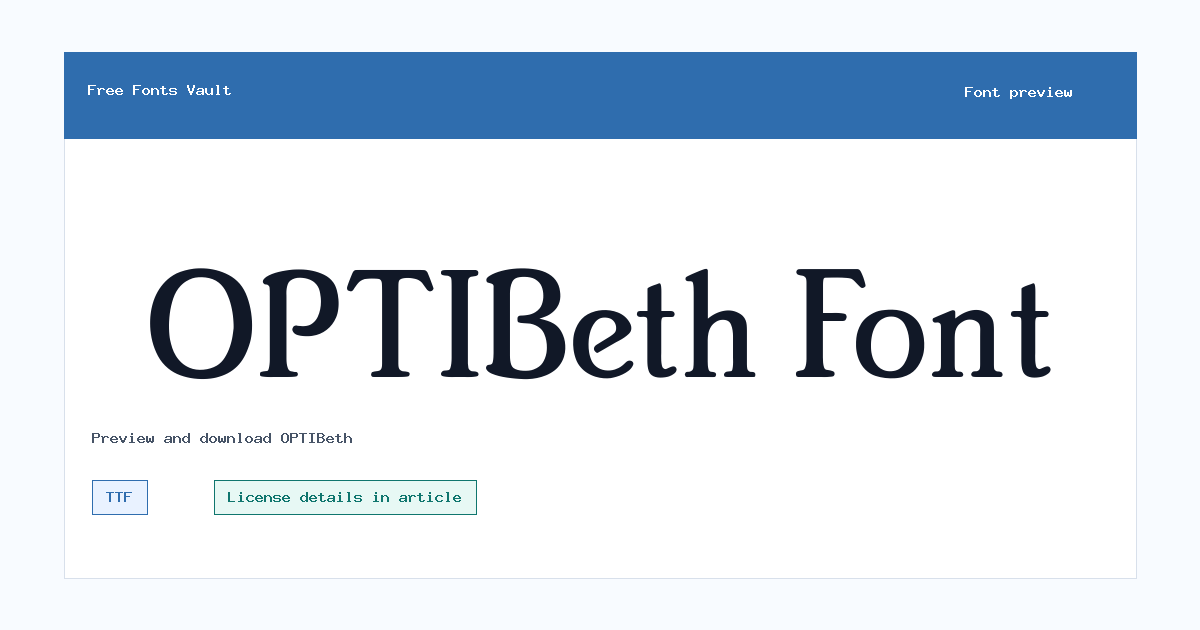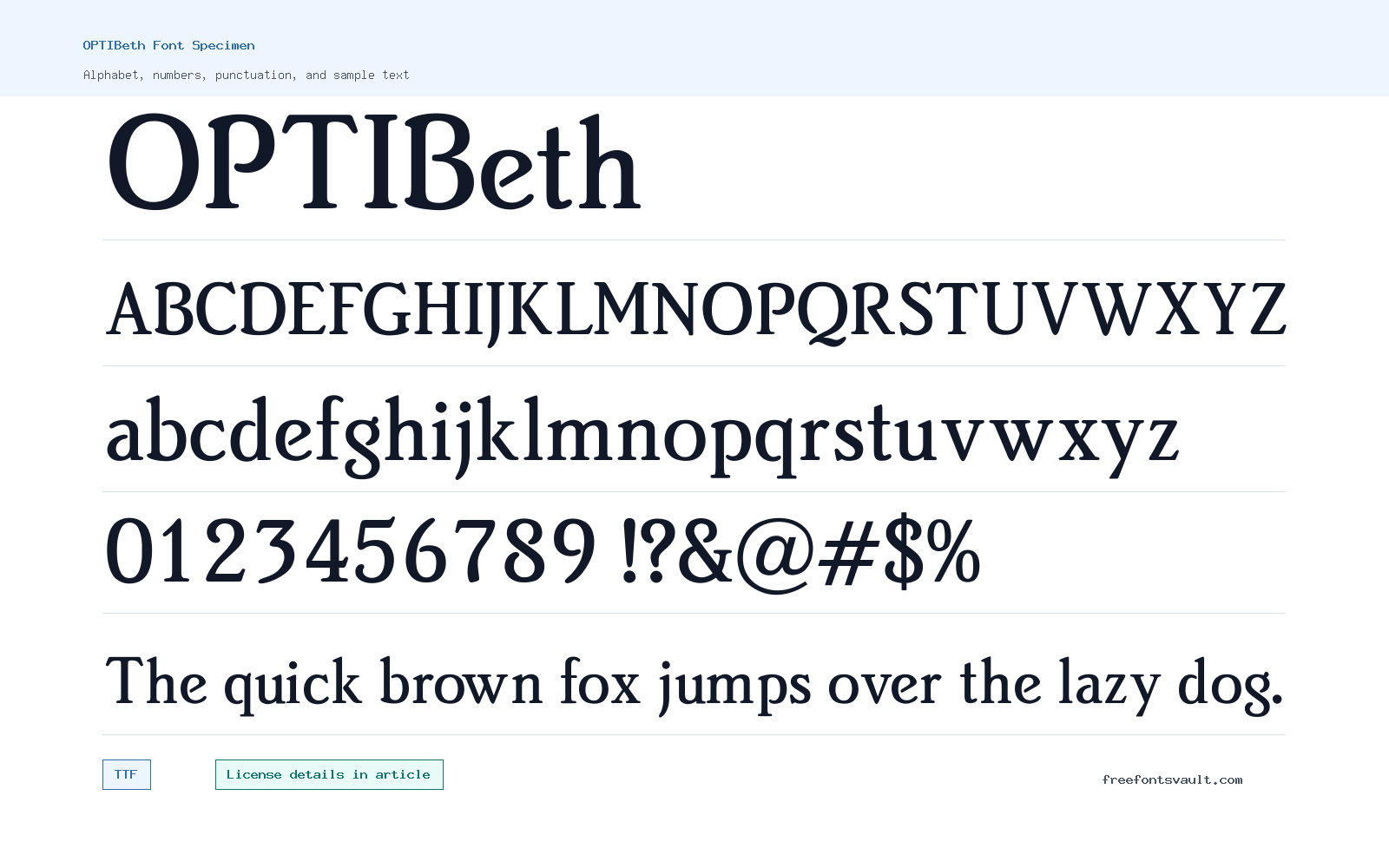
OPTIBeth
- Foundry Castcraft Software, Inc.
OPTIBeth font.
OPTIBeth is a decorative serif display font with rounded curves, soft contrast, and a medium-weight presence. It is the kind of typeface to try when a plain serif feels too formal but you still want a letterform with old-style charm and visible personality.
About OPTIBeth Font
OPTIBeth is better for short display moments than for dense reading. Test it in the preview with your real title, then check spacing between rounded letters and the balance of uppercase and lowercase. For a polished layout, use OPTIBeth for the main phrase and a simpler serif or sans serif for paragraphs, captions, and navigation text.
- Medium 500 weight with upright normal styling.
- Decorative serif personality suited to display use.
- Works best when the letters have room to breathe.
- Headlines, title graphics, quote images, and editorial-style accents.
- Book-cover mockups, poster text, labels, and vintage-inspired designs.
- Logo drafts and decorative wordmarks that need a softer serif shape.
- Pairing with a cleaner reading font for longer supporting copy.
The embedded font data points to Castcraft Software, Inc. as the rights or production reference, but it does not give a clean individual designer credit. For formal attribution, verify the exact credit from the font package or a trusted archive before you use it in a finished project.
Start with larger sizes and short phrases. If the shapes feel crowded, add a small amount of letter spacing or reduce the word count. OPTIBeth can make a headline feel warmer and more distinctive, but long paragraphs will usually read better in a simpler companion font. It can also work well as a small accent in a larger serif layout, especially when used for a pull quote, product name, or short editorial heading.
What kind of font is OPTIBeth?
OPTIBeth is a decorative serif display font with a medium upright style.
Is OPTIBeth good for paragraphs?
It is better for short display text. Use a simpler text font for long paragraphs and keep OPTIBeth for headings or accents.
Who is connected with OPTIBeth?
The embedded data references Castcraft Software, Inc. as the rights or production name. A separate individual designer credit is not confirmed.